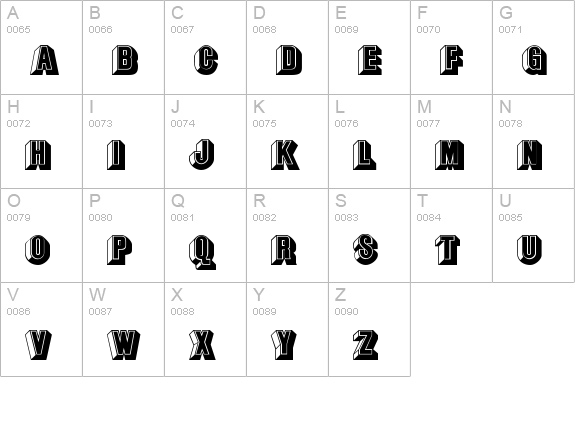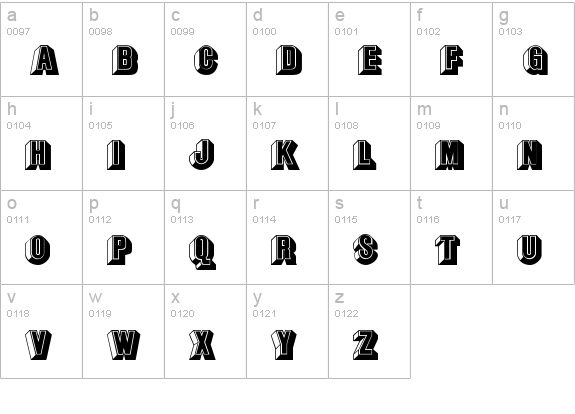
Savannah Fat Font Details
Introducing Savannah Fat, a bold and attention-grabbing font that effortlessly captures the essence of strength and confidence. With its thick strokes and unique letterforms, this font is perfect for making a statement in your designs. Savannah Fat is not only visually stunning, but it is also incredibly versatile. Whether you're creating a logo, designing a poster, or crafting a website, this font will elevate your project to new heights. Its bold presence demands attention and ensures that your message will be heard loud and clear. But what sets Savannah Fat apart from the rest is that it is freely available to download at FontsMarket.com. Yes, you heard it right! You can enhance your designs without spending a dime. This font not only offers exceptional quality but also provides accessibility to designers of all backgrounds. With its wide range of characters and extensive language support, Savannah Fat can be used in various projects around the globe. Its clean and modern aesthetic makes it suitable for both digital and print mediums, ensuring that your message reaches your audience in the most impactful way possible. So why wait? Unleash your creativity and download Savannah Fat today at FontsMarket.com. Experience the power of a free font that will transform your designs and leave a lasting impression on anyone who encounters them.